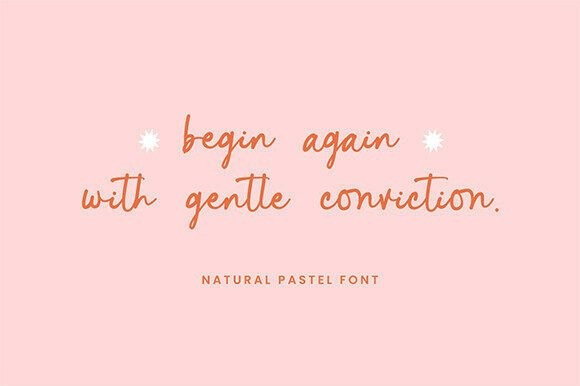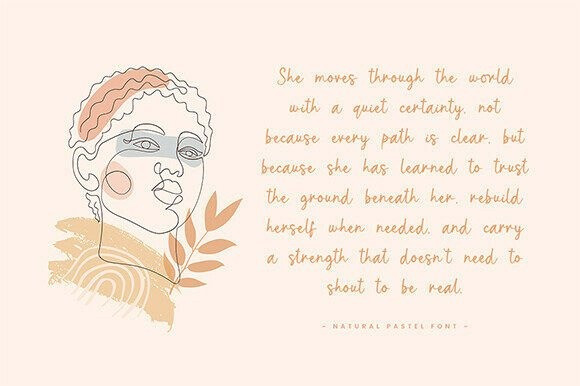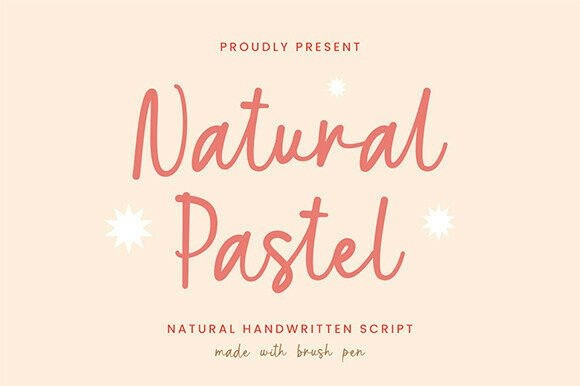
Natural Pastel Handwriting Font
Natural Pastel Handwriting Font is a natural handwritten brush font crafted manually to deliver an authentic, organic feel in every stroke.Designed with soft textures and fluid curves, this font brings a warm, personal touch to branding, packaging, social media posts, invitations, and modern stationery projects. Its handcrafted brush style creates a relaxed yet refined aesthetic, making it ideal for designers seeking a genuine handmade look.